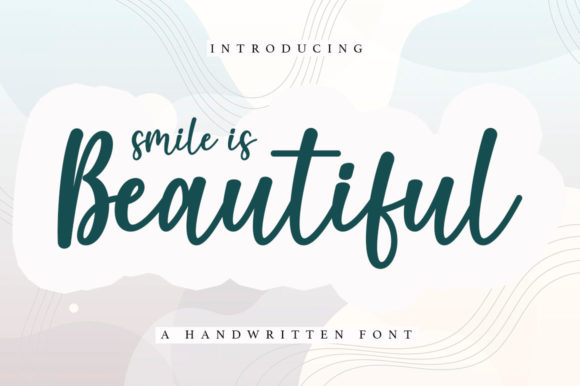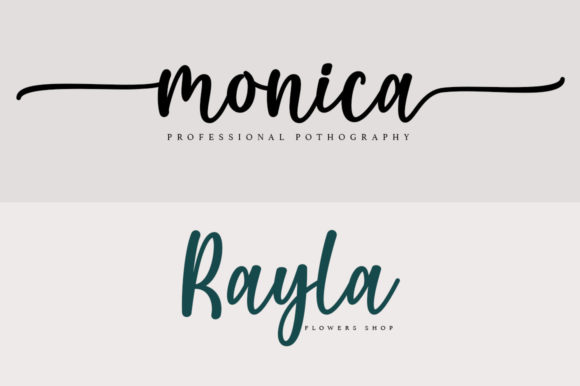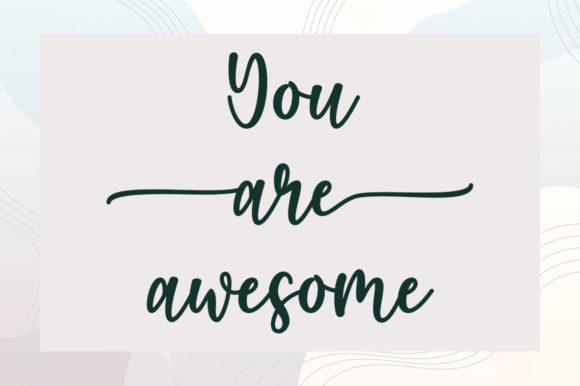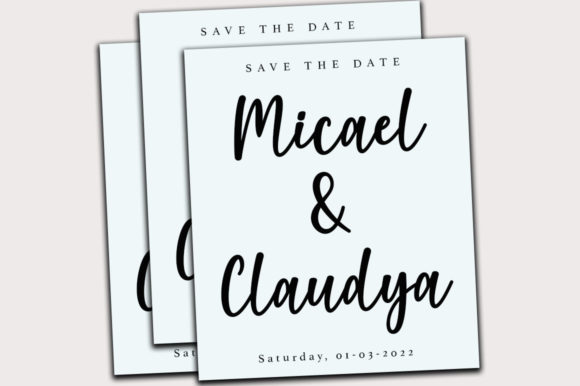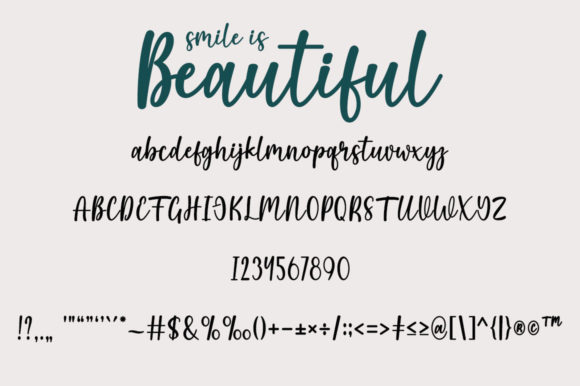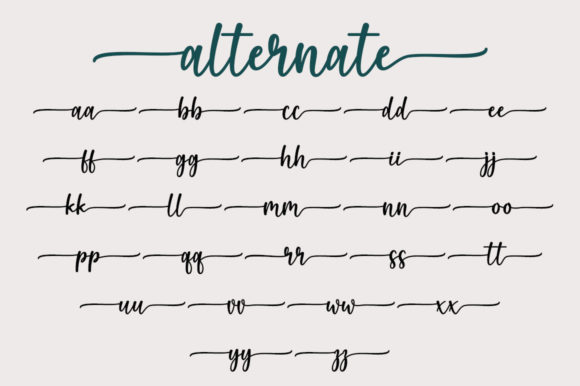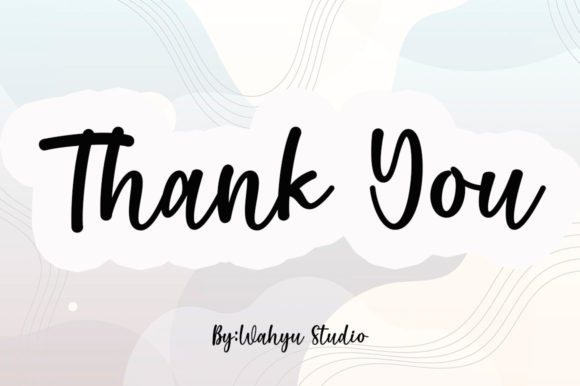
Smile is Beautiful Font
About Smile is Beautiful Font
Smile Is Beautiful is a flowing handwritten font, described by an elegant touch, perfect for your favorite projects. Fall in love with its incredibly distinct and timeless style and use it to create spectacular designs! This font is PUA encoded which means you can access all of the glyphs and swashes with ease!